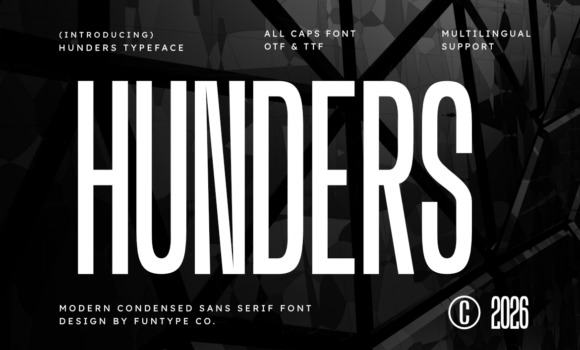
hunders
Hunders Font – Free Download Introduction to Hunders Font Hunders is a bold and powerful modern condensed sans serif font designed for high-impact and elegant typography. 📸 Preview Gallery 6 images 📌 Product Name Hunders Font 👤 Author Funtype Co.